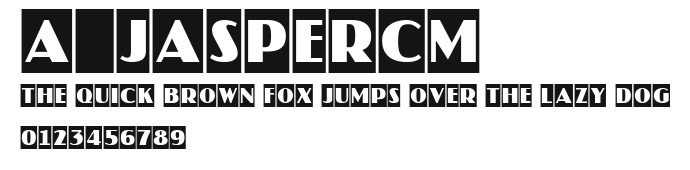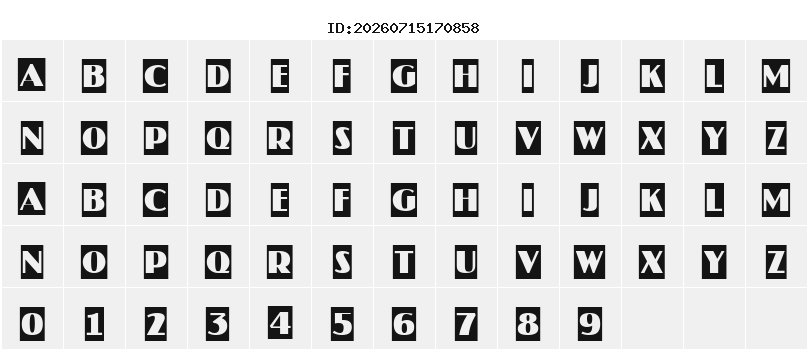
a_JasperCm Preview
• Font Name: a_JasperCm
• Font Style: Demi
• Font ID: a_JasperCm
• Full Font Name: a_JasperCm
• PostScript Name: a_JasperCm
About a_JasperCm.ttf
a_JasperCm.ttf is a modern, elegant sans-serif font designed for ultimate readability and visual harmony. Perfect for branding, headlines, web design, and print materials.